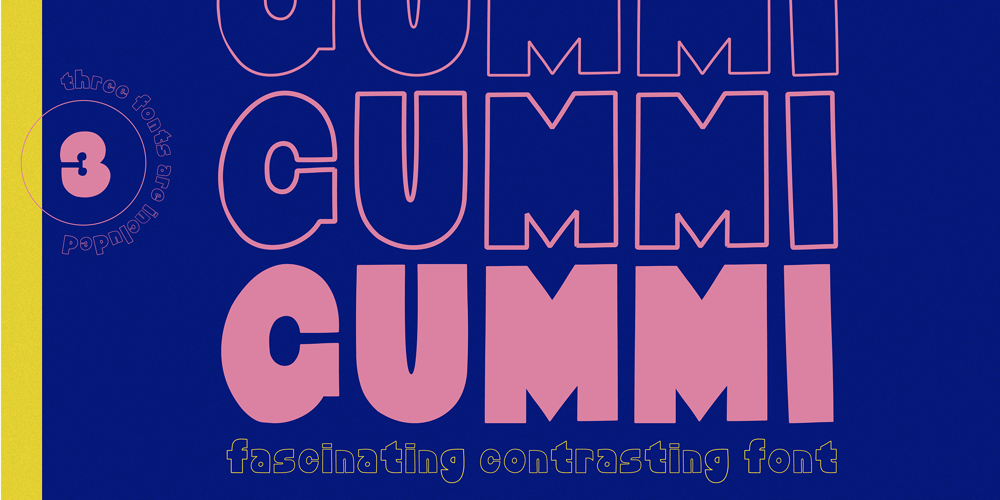
Gummi Font Family was designed by Anastasia Kuznetsova and published by Anastasia Kuznetsova. Gummi contains 3 styles and family package options. I present to you a fascinating contrasting font system, Gummi! Modern development of 3 fonts, each of which is designed to complement each other in a natural way. This is an extremely versatile font collection, ideal for experimenting with vibrant and modern typographic designs in any modern design.This product includes 3 font files containing uppercase and lowercase characters, numbers and a large set of punctuation marks.Font Features* A-Z; a-z character set;* 1 language (English);* numbers and punctuation marks, symbolsA font containing uppercase and lowercase letters, numbers, and a wide range of punctuation marks.Fonts can be opened and used in any software that can read standard fonts, even in MS Word. No special software is required, and to get started.It is recommended to use it in Adobe Illustrator or Adobe PhotoshopMade with love ♡Thanks for checking it out, and feel free to drop me a message if you had any queries!~ Anastasia